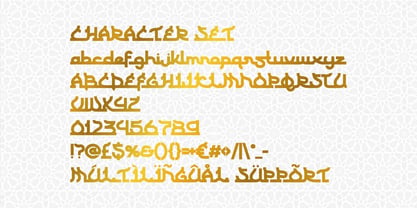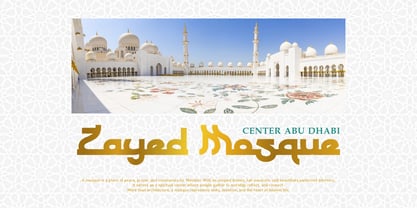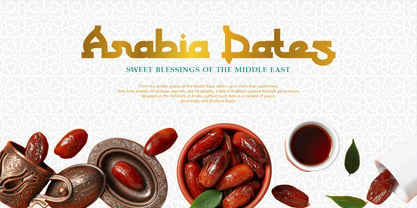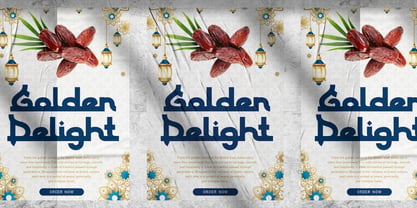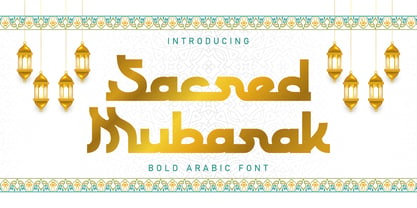
Sacred Mubarak
by Shanaf
The Sacred Mubarak Font Family was designed by Yesie Erma Yunita and published by Shanaf. Sacred Mubarak contains 1 styles. More about this family
Elevate your designs with the cultural richness and spiritual elegance of Sacred Mubarak, a bold Arabic-inspired display font that fuses modern design with Middle Eastern heritage. The font's distinctive curves and geometric precision are reminiscent of kufic calligraphy, reimagined through a contemporary lens. Every letterform features thick horizontal strokes and sharp verticals that balance modern minimalism with ornamental heritage. Sacred Mubarak’s golden gradient styling amplifies its opulence, making it a standout choice for themes of faith, festivity, and luxury.
Perfect for branding, Ramadan and Eid campaigns, Halal product packaging, wedding invitations, and Islamic educational material, this font captures the essence of unity and tradition. Its versatile layout adapts beautifully across both print and digital platforms, retaining clarity and prestige in headlines, logos, and decorative elements. With multilingual support and a full character set, Sacred Mubarak empowers designers to deliver cross-cultural elegance with authenticity and grace. Its seamless blend of sacred symbolism and contemporary boldness makes it an essential font for Islamic-themed design work.
Designers: Yesie Erma Yunita
Foundry: Shanaf
Sacred Mubarak